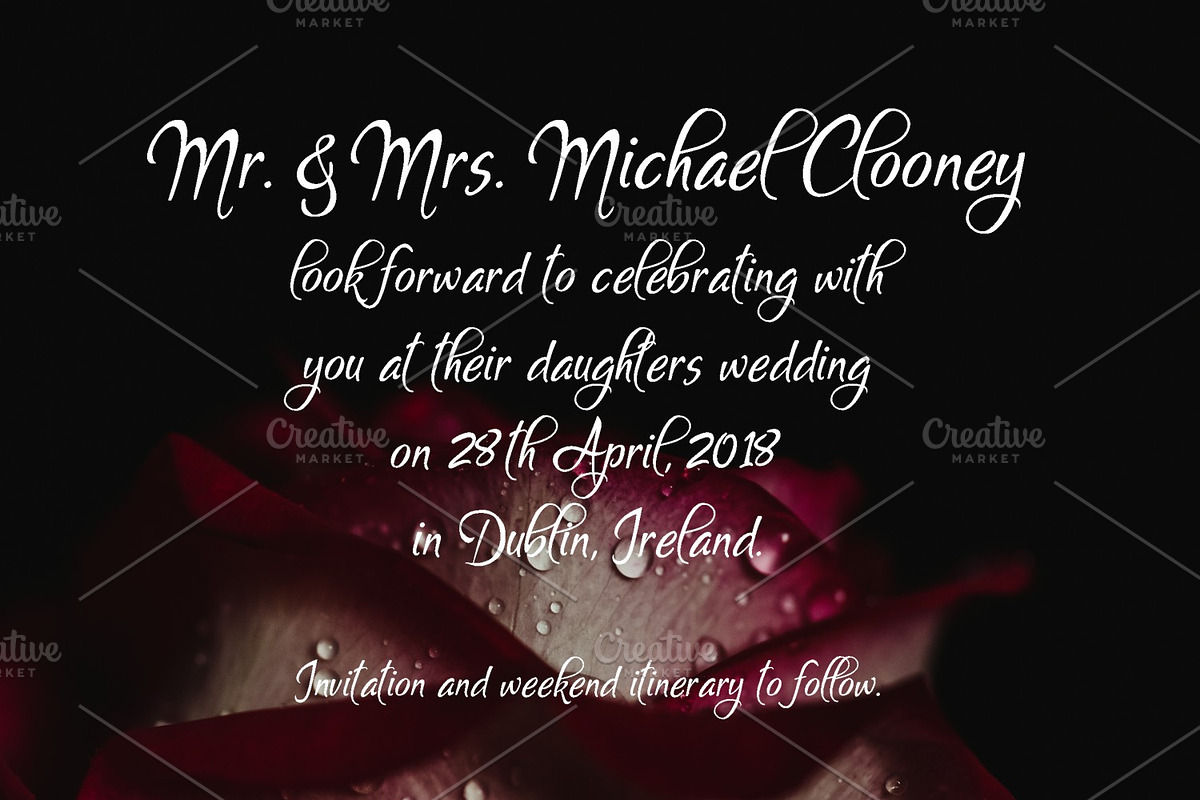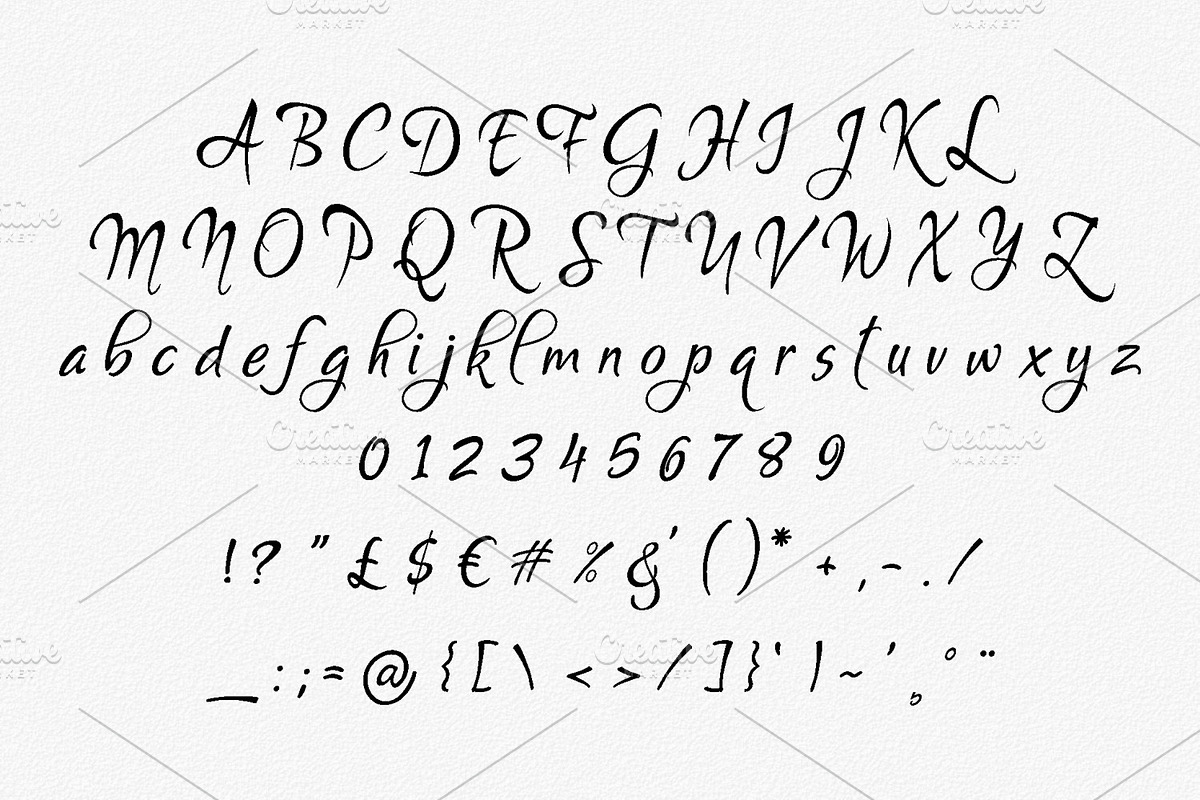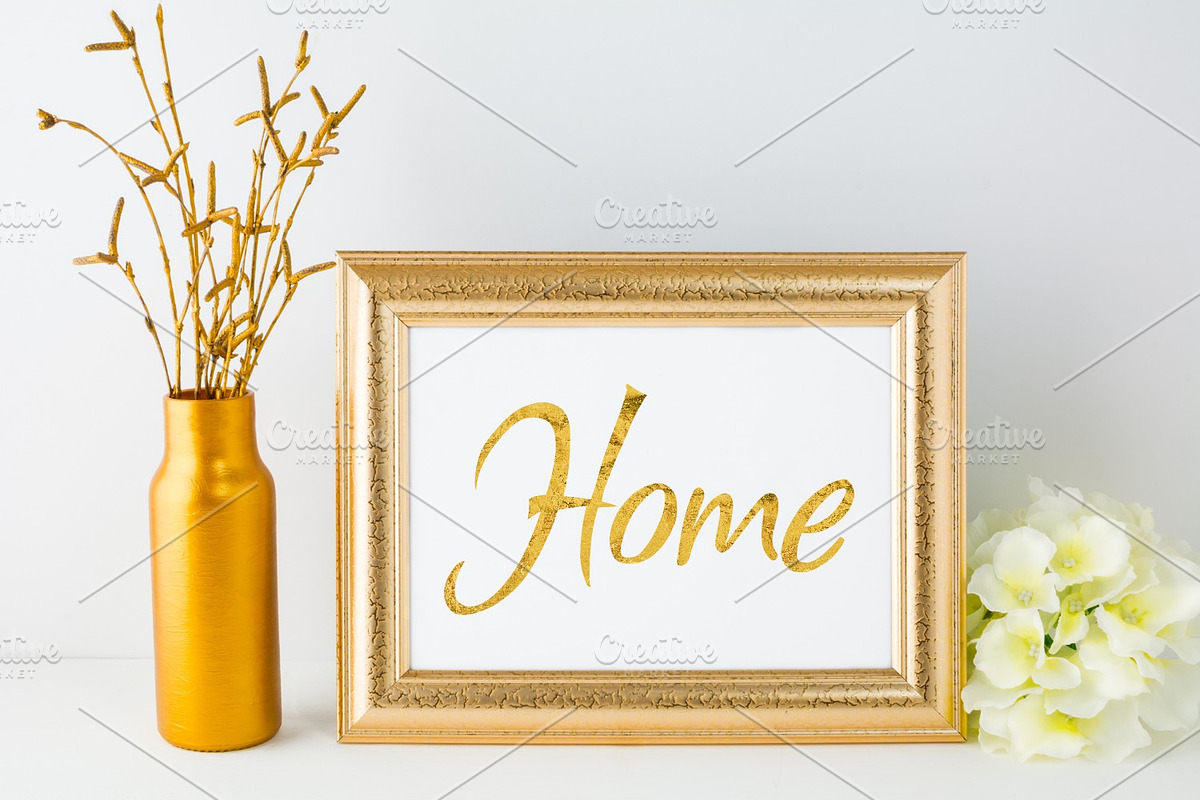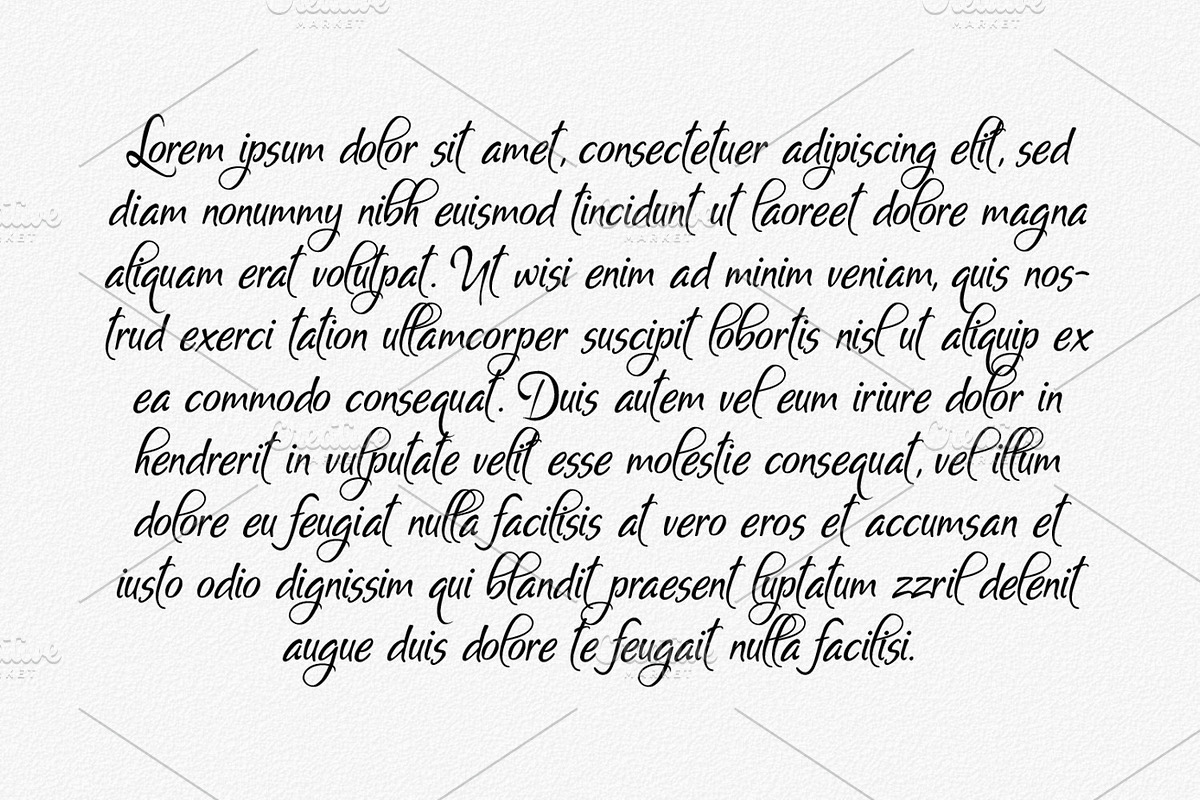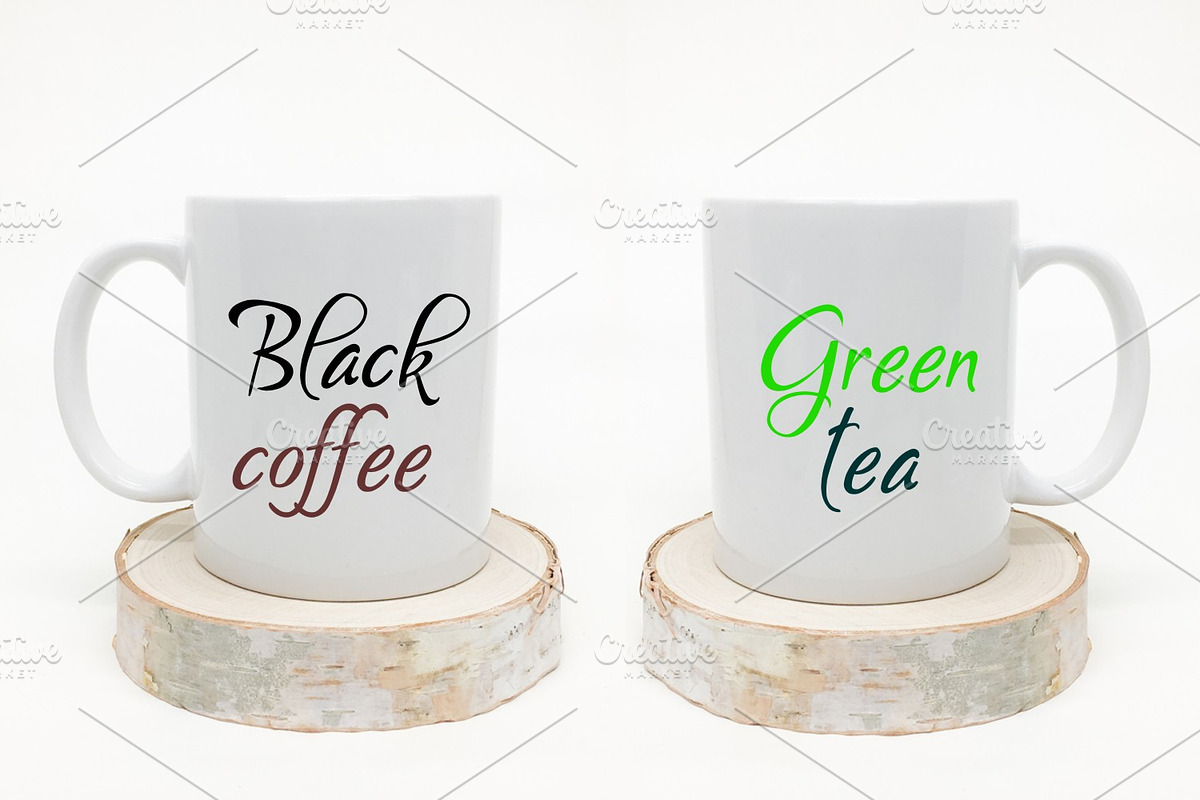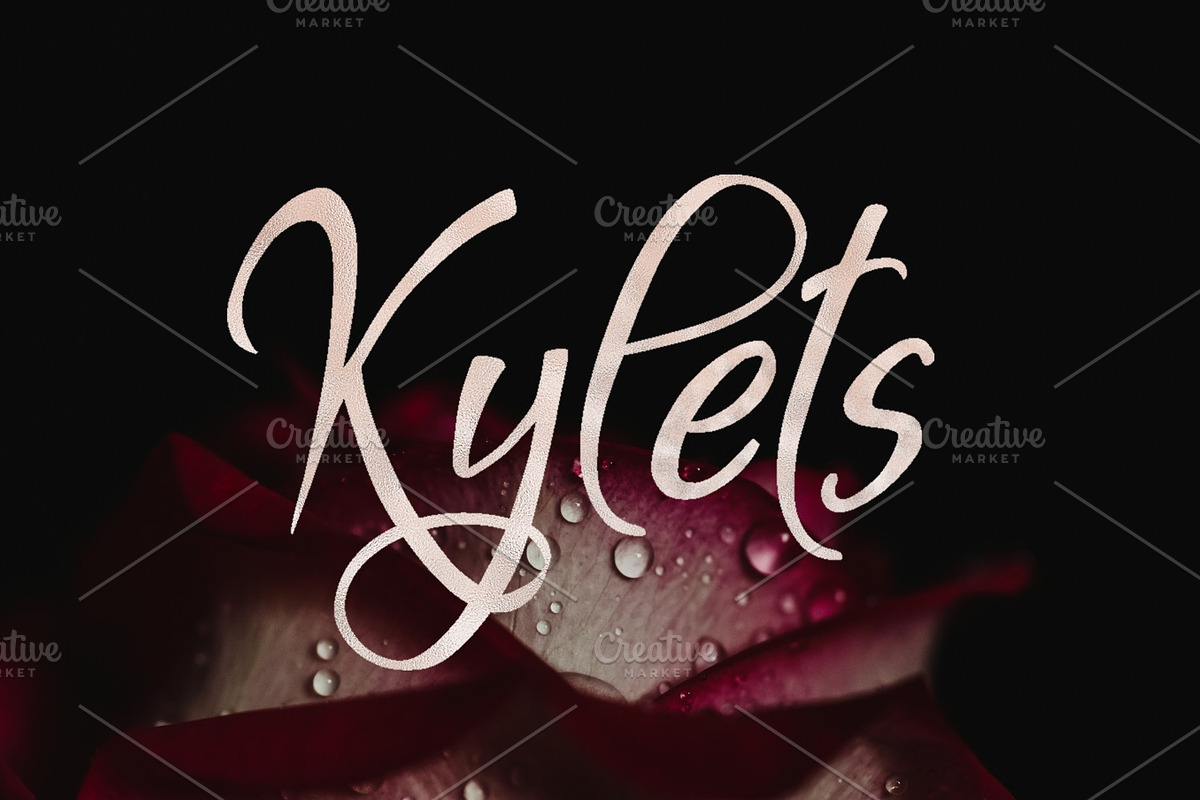
Kylets
Introducing Kylets handwriting script typeface.
Great for cards, invitations and for any craft project.
Kylets by Digital Typeface Studio fits naturally into Branding, posters, packaging, typography.